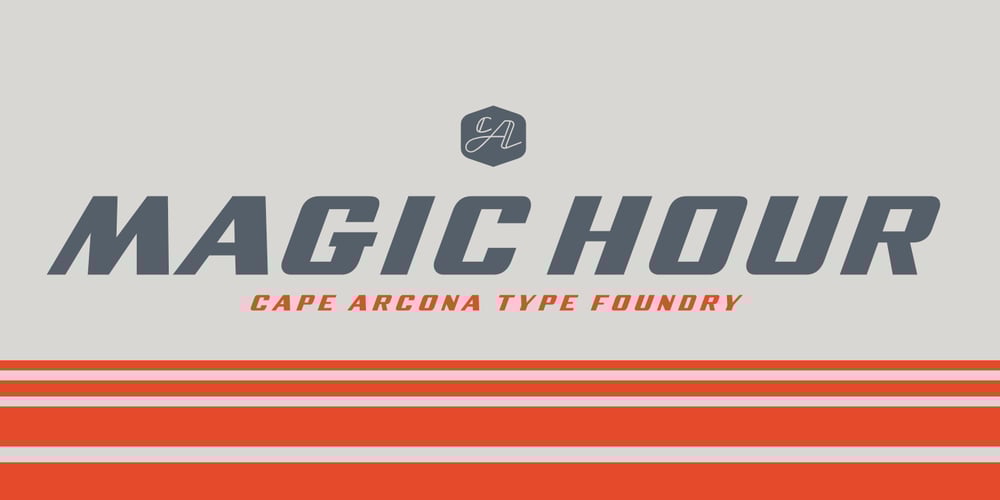
CA Magic Hour Font Family was designed by Stefan Claudius and published by Cape Arcona Type Foundry. CA Magic Hour contains 1 styles and family package options. You remember the time when the Concorde was the fastest passenger plane on earth? When it was possible to travel from Paris to New York in 3 3/4 hours? Those were cool times. Times when cocktails tasted good and you didn’t think of an eventual headache afterwards. Times when you didn’t have to think how to dress because there was only one way. Straight from that time comes CA Magic Hour. A vintage font from a time from which we could learn a lot today. Optimistic and straight forward, it will speed up your designs.